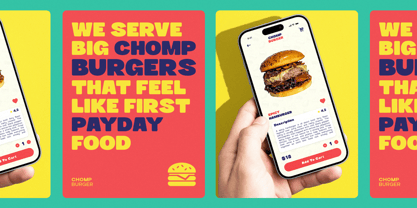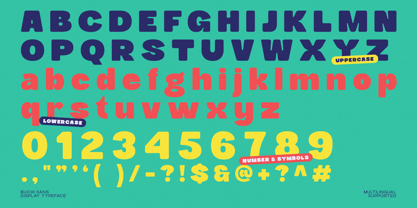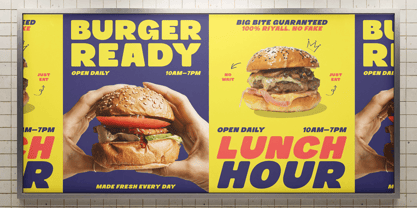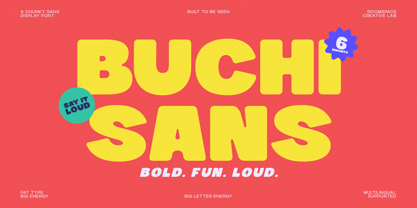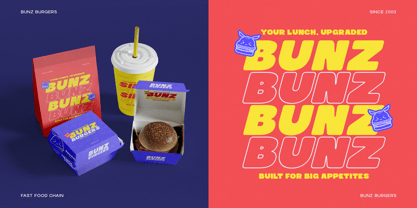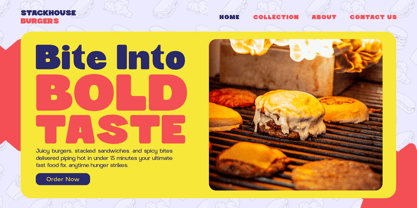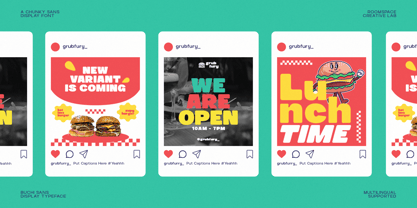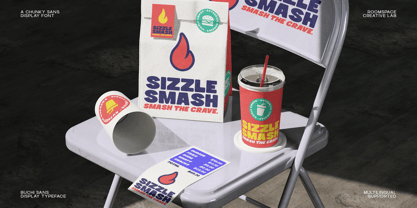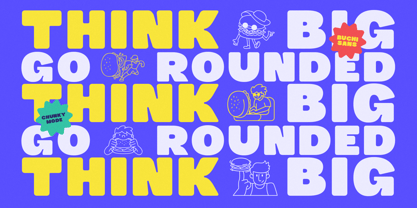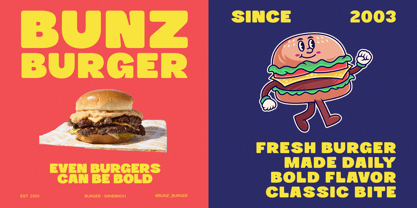
Buchi Sans
Die Schriftfamilie Buchi Sans wurde von Bakhrudin Ja'far entworfen und von Jafar07 veröffentlicht. Buchi Sans enthält 6 Stile und Familienpaketoptionen. Mehr über diese Familie
Bold, playful, and high-energy a chunky sans-serif built to grab attention instantly. Buchi Sans delivers loud visual impact with rounded, oversized letterforms that feel fun, confident, and expressive. The tone is joyful, energetic, and unapologetically bold perfect for designs that need to stand out fast. Buchi Sans brings big-letter personality + modern display attitude, making every headline feel alive, friendly, and memorable. Buchi Sans a bold and playful display font built with chunky letterforms and friendly curves. Designed to stand out instantly, Buchi Sans adds big energy and joyful character to any layout. Whether you’re designing posters, social media content, brand visuals, or packaging, Buchi Sans helps your message feel confident, modern, and unforgettable. Font Features Bold chunky sans-serif style Uppercase & lowercase Multilingual support PUA encoded Optimized for headlines & display use Perfect For : Branding, posters, social media, packaging, logos, merchandise, event graphics, and creative campaigns.
A little from my personal design & background: My name is Bakhrudin Ja'far, I live in Malang, Indonesia. I am currently completing my degree in visual communication design and I have worked as a lettering artist and logo designer for many years. I finally started my studio called roocspace creative lab (jafar07) Studio a few months ago and with my team made my letters into typography.